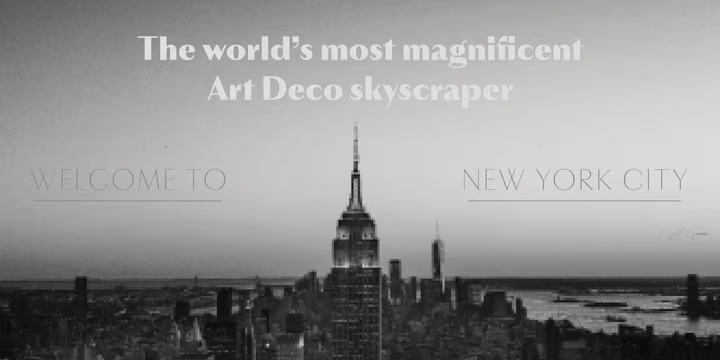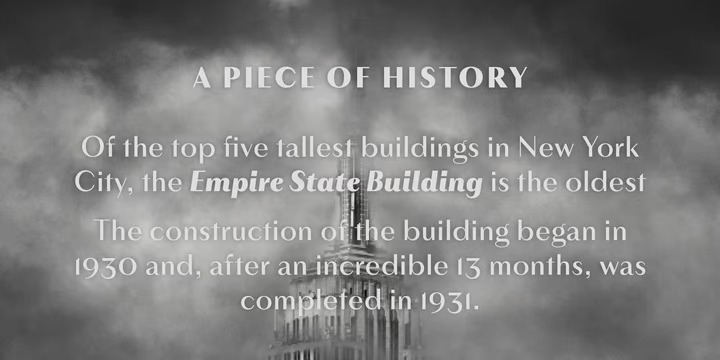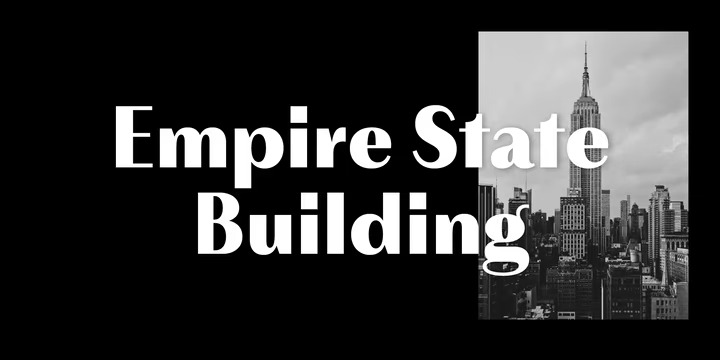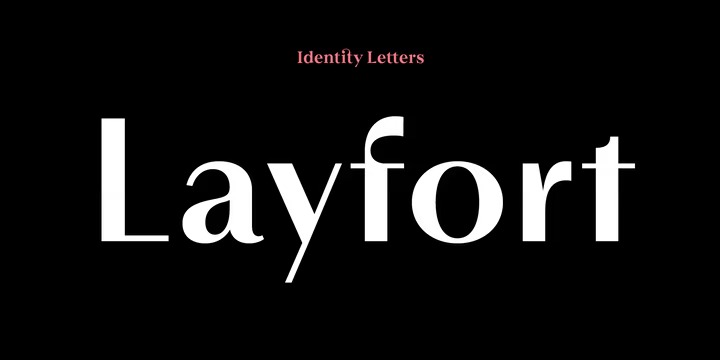
Layfort Sans Serif Font is an elegant, modern and contrast sans-serif font. And at 16 styles & 750 glyphs, it’s ready for complex typographic demands (try the round dots at SS09). Made from font designer named Identity Letters . It’s a contrasted sans-serif typeface with old-style proportions: varying letter widths create a more vivid texture than your usual contemporary sans, and the true italics are narrower than the uprights.